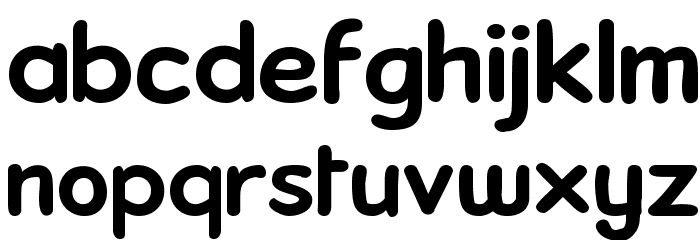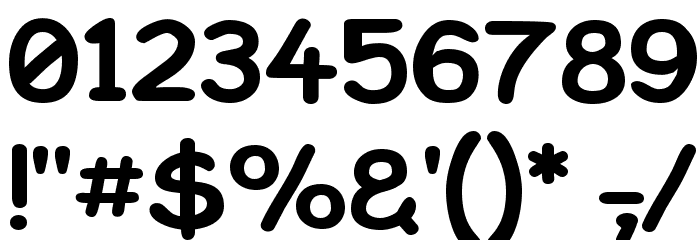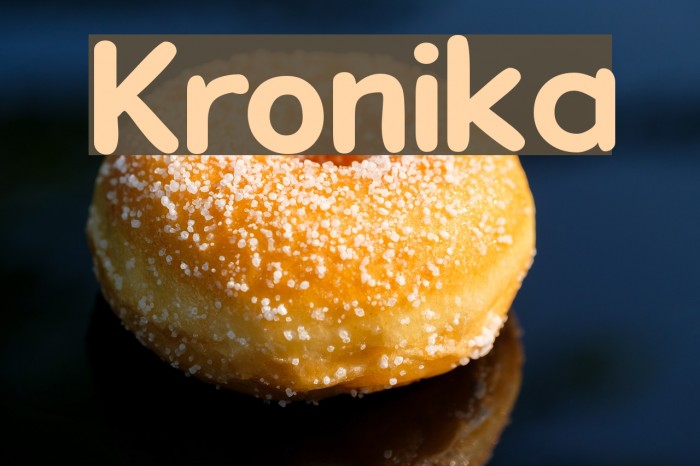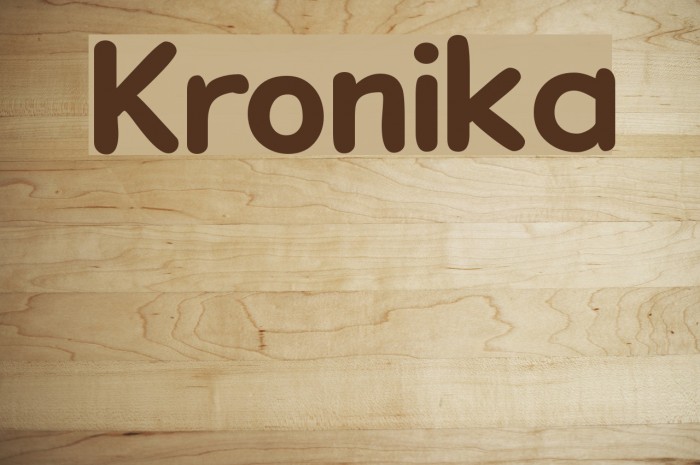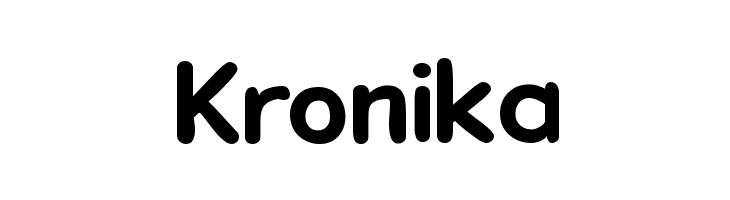
Kronika Font
This font features a playful and rounded design, characterized by its bold and friendly appearance. The letters are uniformly thick, giving it a consistent and approachable look. The rounded edges and smooth curves contribute to its informal and casual style, making it ideal for projects that require a touch of whimsy and warmth. The numerals and special characters maintain the same rounded aesthetic, ensuring a cohesive visual experience across all text elements.
A playful, rounded font with a bold and friendly appearance.
- Proposed Projects: Ideal for children's books, playful branding, casual invitations, and educational materials.
- Overall Style: Playful
- Use Case: Headlines, Logos, Informal Text